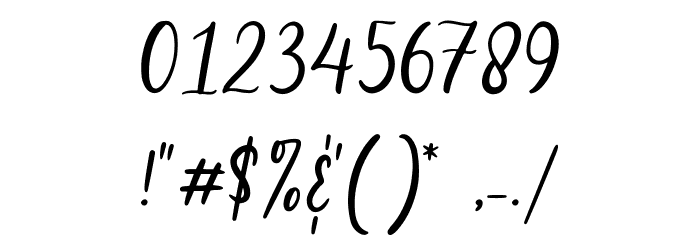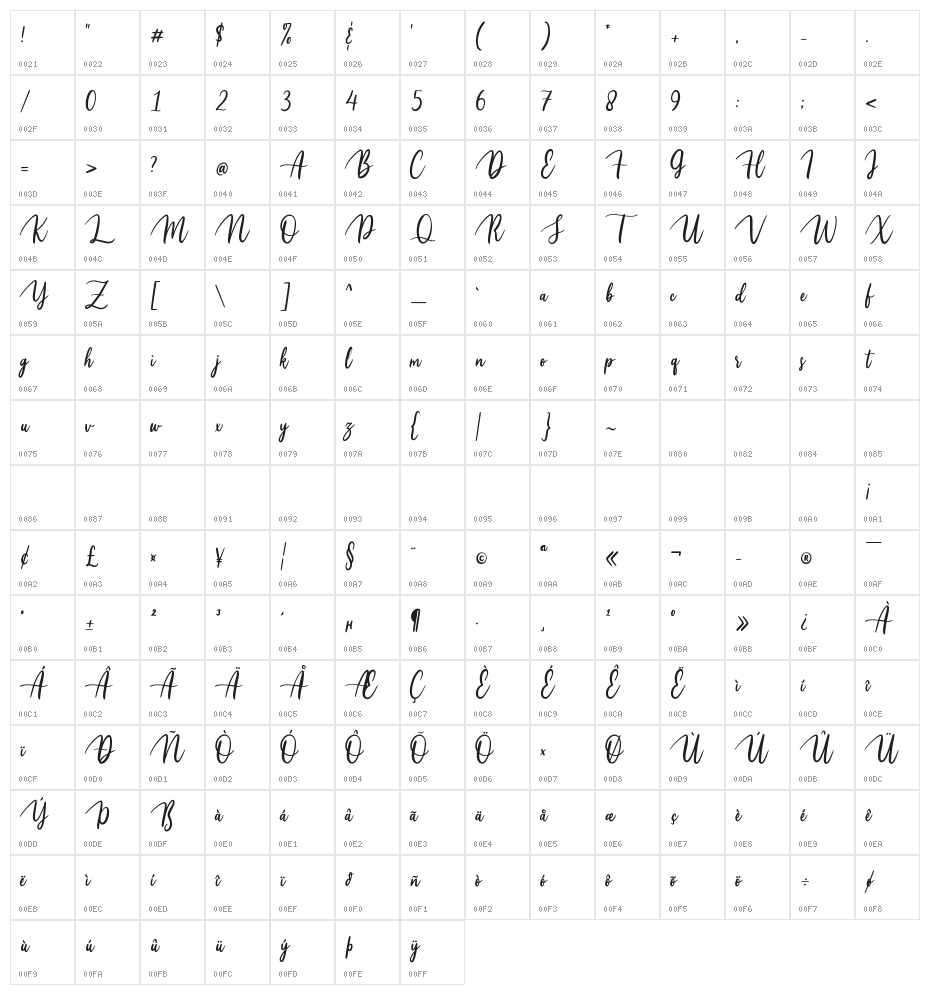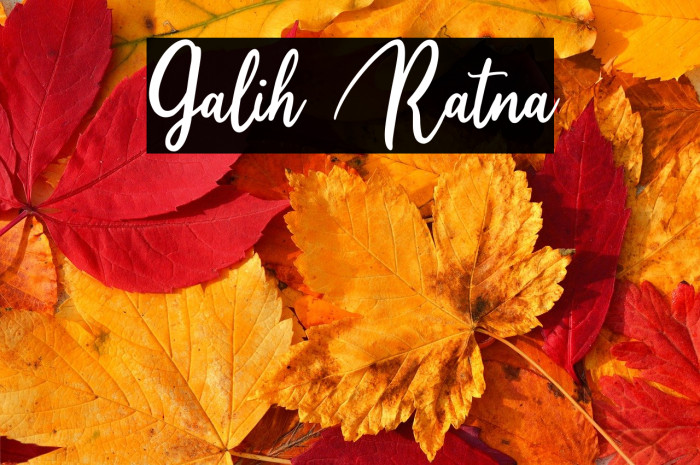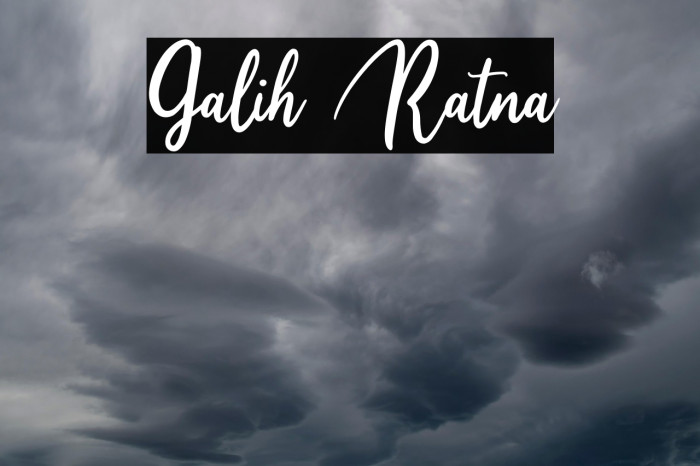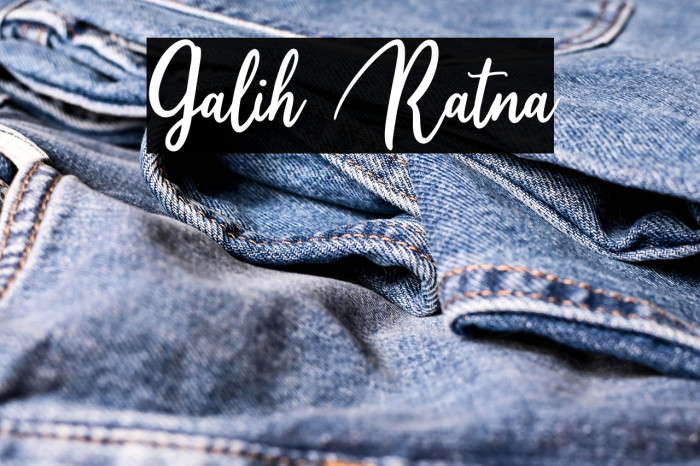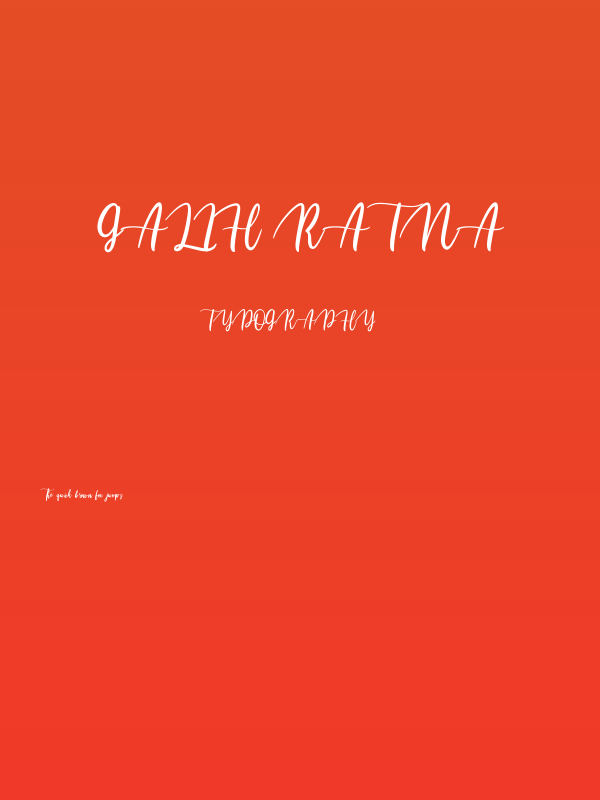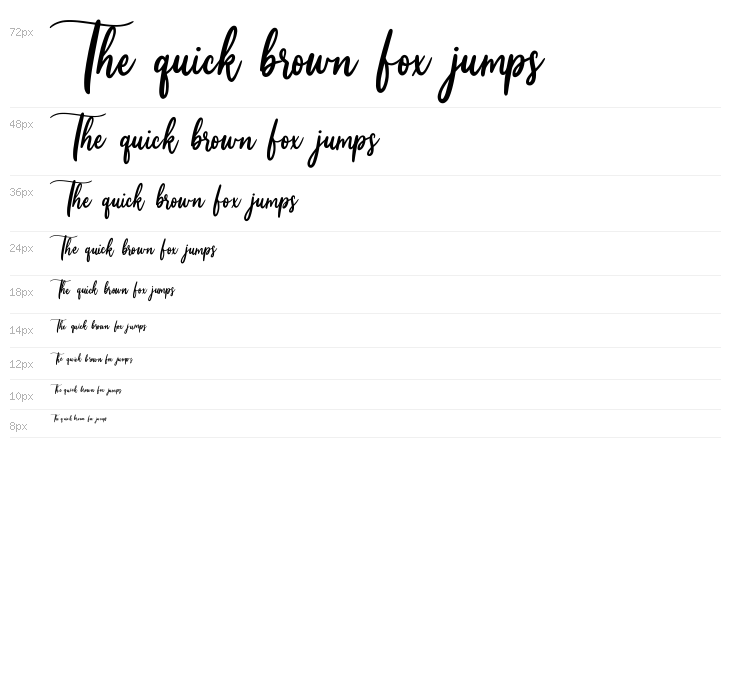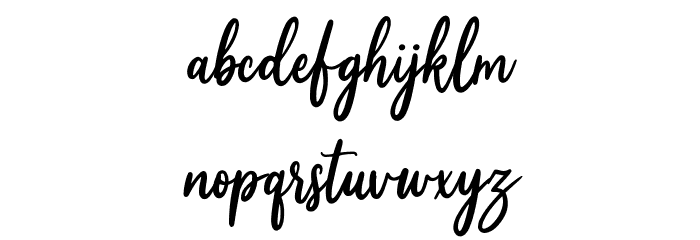
Galih Ratna Font
Galih Ratna Description
This font exhibits a flowing, cursive style that is both elegant and modern. The uppercase letters are characterized by their sweeping curves and fluid connections, giving them a sense of movement and grace. The lowercase letters maintain a consistent style, with smooth transitions and rounded forms that enhance readability. The numerals are designed to complement the letters, featuring similar curves and a balanced appearance. Special characters are thoughtfully integrated, maintaining the overall aesthetic. The font's design is suitable for projects that require a touch of sophistication and personal flair.
| Use Case | Logos, Headlines, Invitations |
| Proposed Projects | Ideal for wedding invitations, branding, greeting cards, and elegant packaging. |